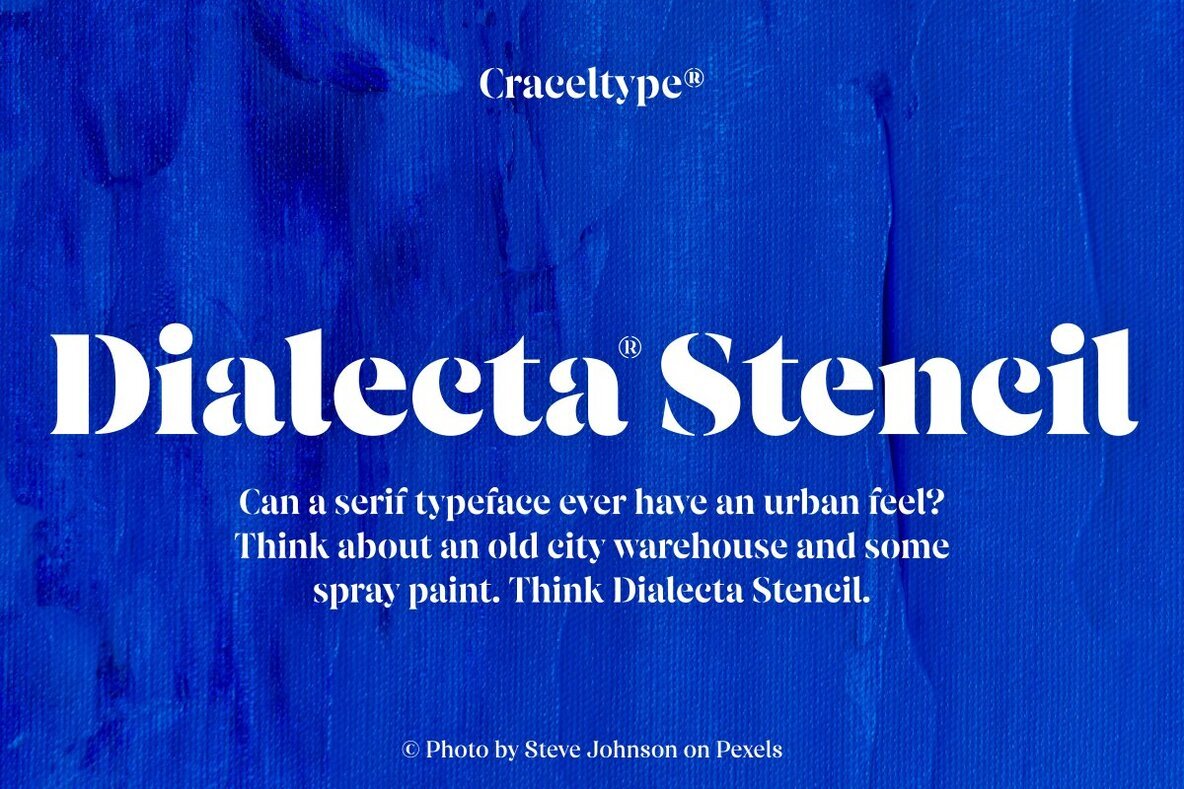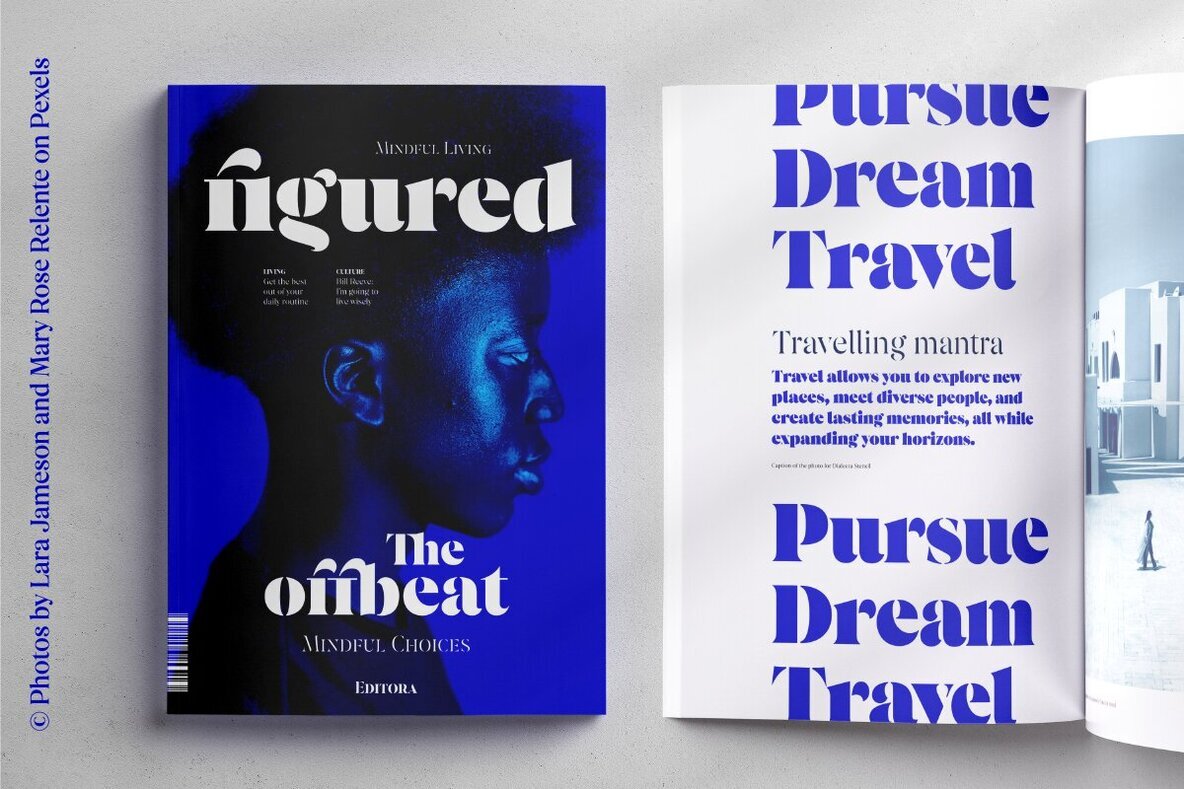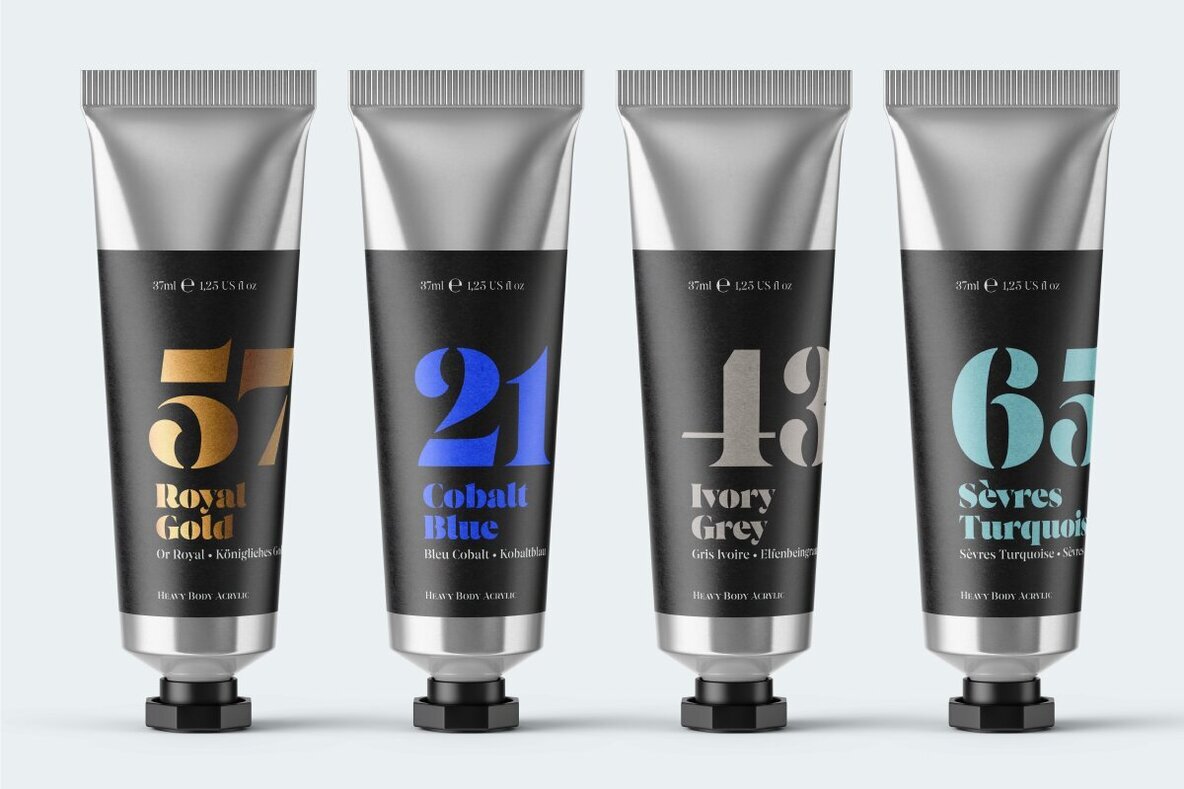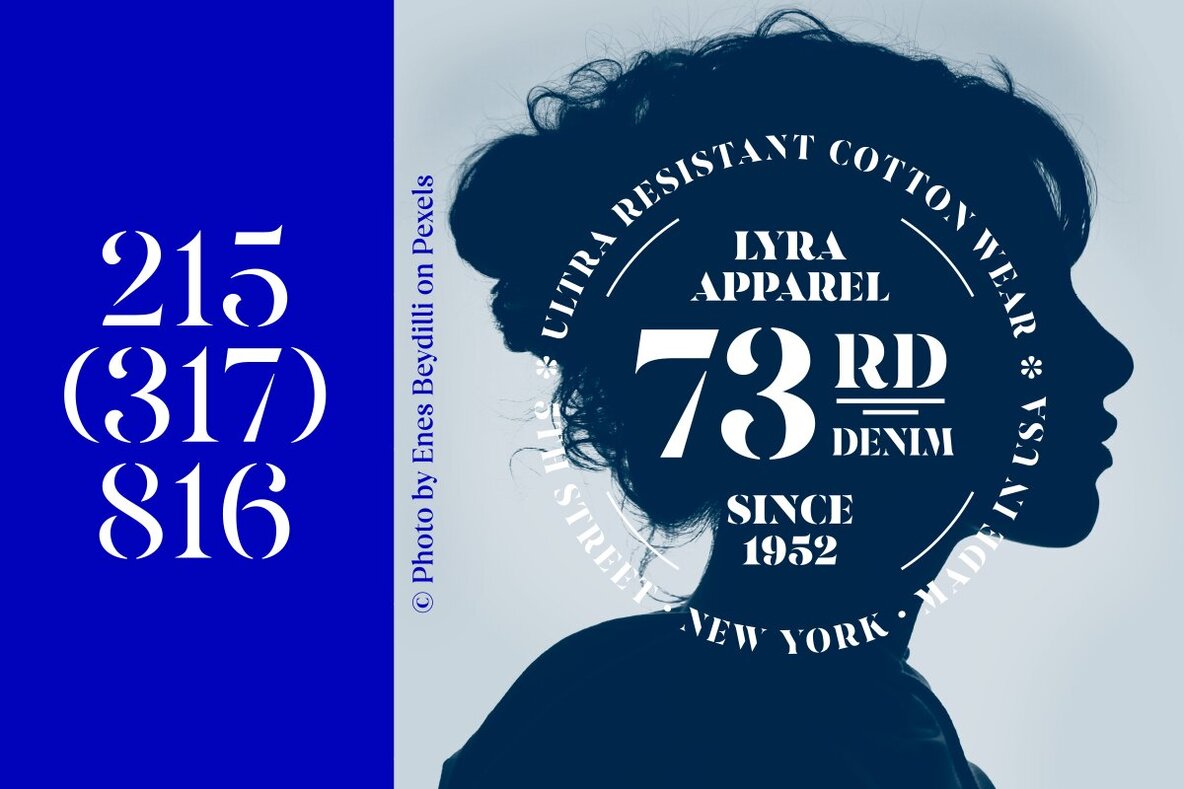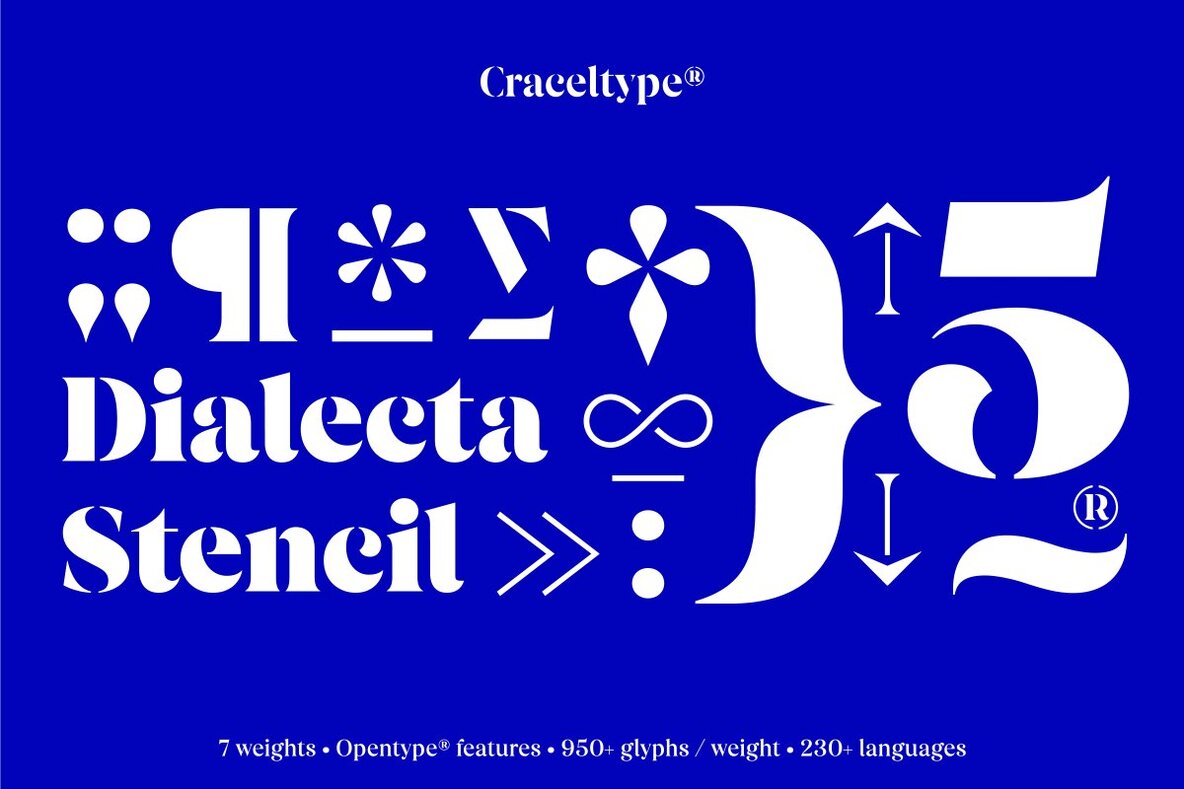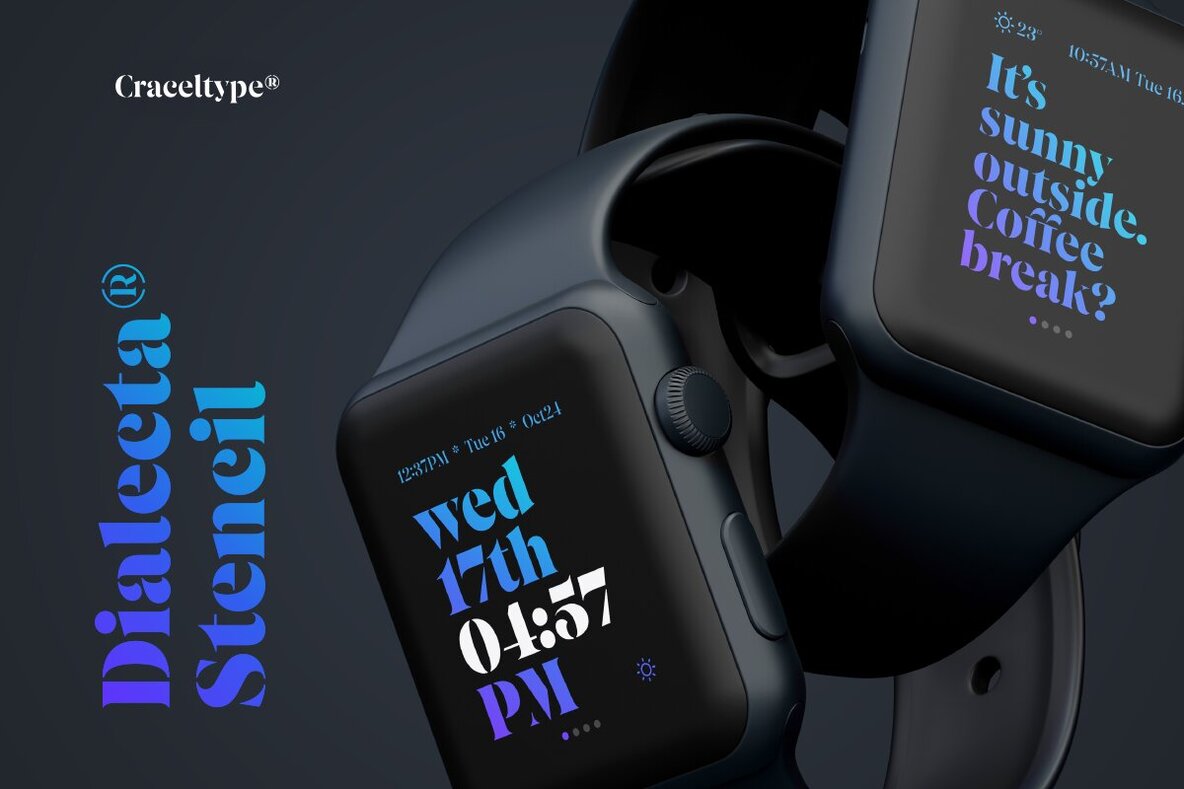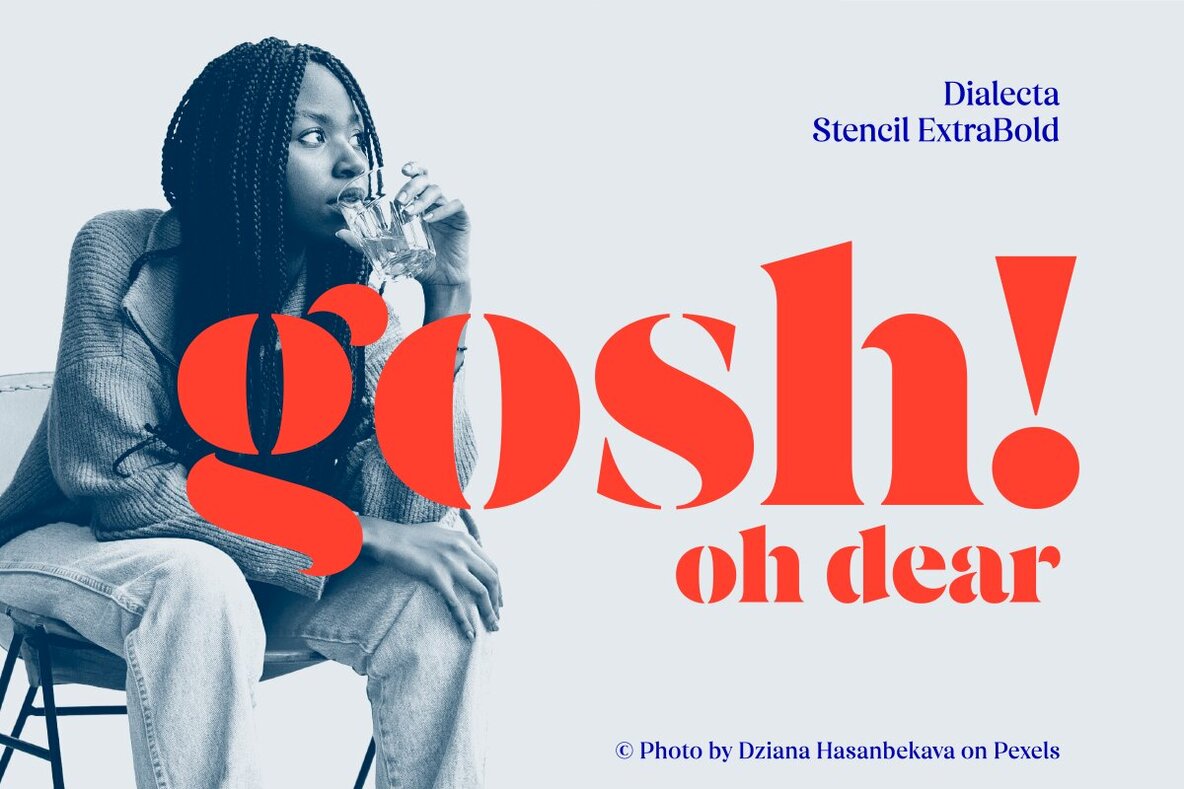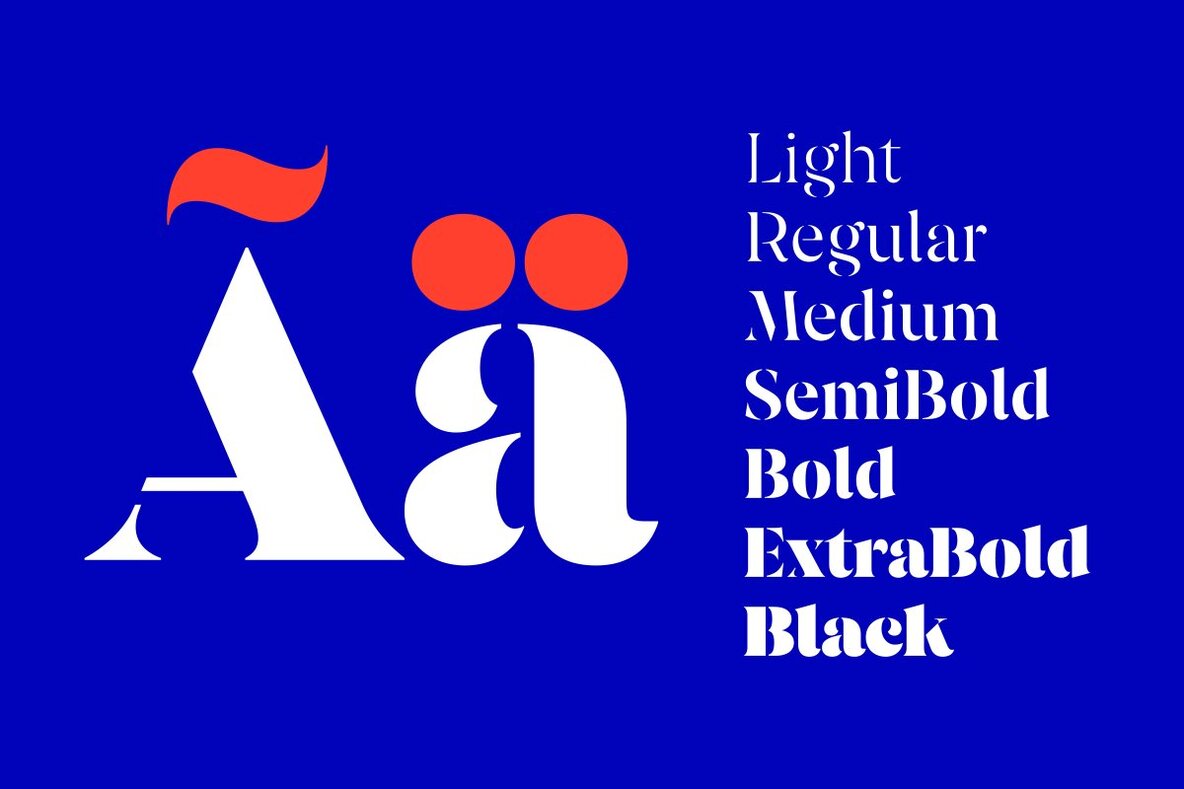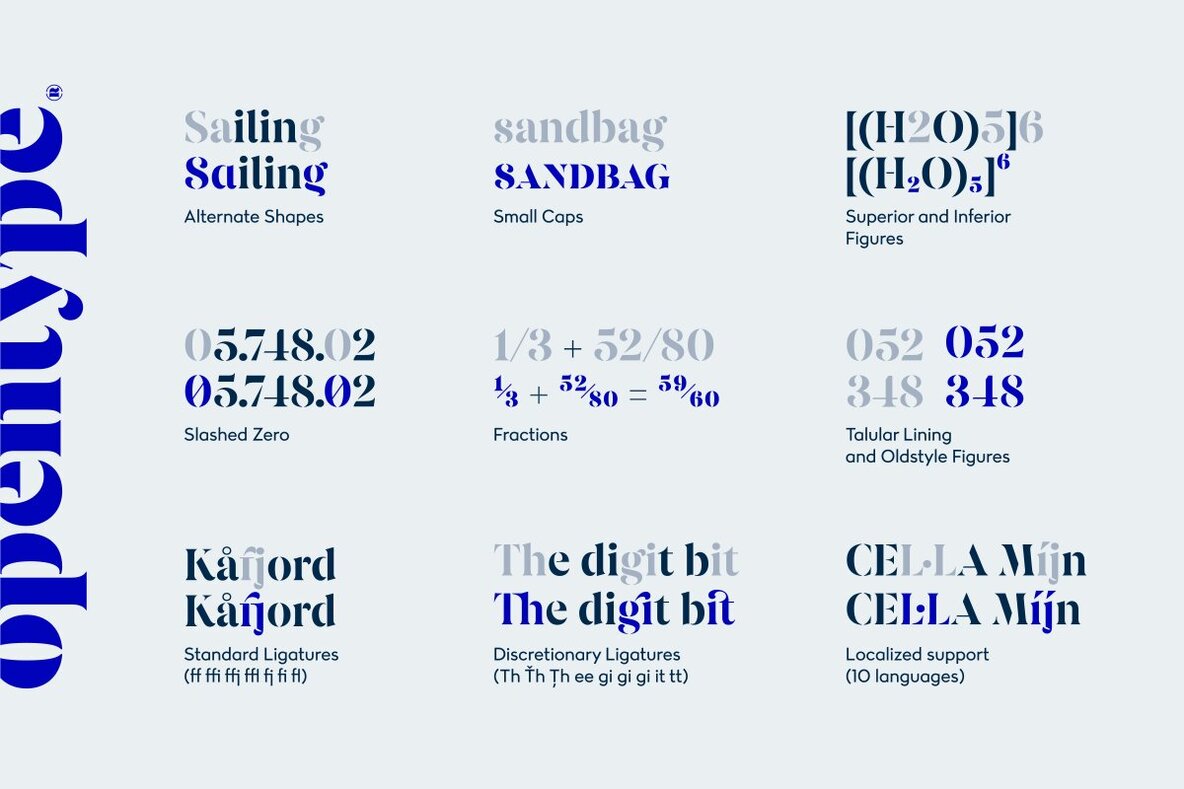
Dialecta Stencil Font
Dialecta Stencil Light
Dialecta Stencil Regular
Dialecta Stencil Medium
Dialecta Stencil SemiBold
Dialecta Stencil Bold
Dialecta Stencil ExtraBold
Dialecta Stencil Black
Can a serif typeface embody an urban spirit? We believe so. The initial inspiration for this typeface came from envisioning an old city warehouse with painted lettering on its walls. These mental sketches served as the foundation for Dialecta Stencil, a modern typeface providing a contemporary take on stenciled fonts. With intricate details and a large x-height, it proves ideal for vibrant all-type statements. As the stylish sibling of the Dialecta font family, it boasts versatility with a wide range of alternate characters, small caps, ligatures, case-sensitive forms, and more. Featuring 7 styles and over 950 glyphs per style, it supports 230+ languages and is perfect for creating bold, snappy, stenciled headlines.